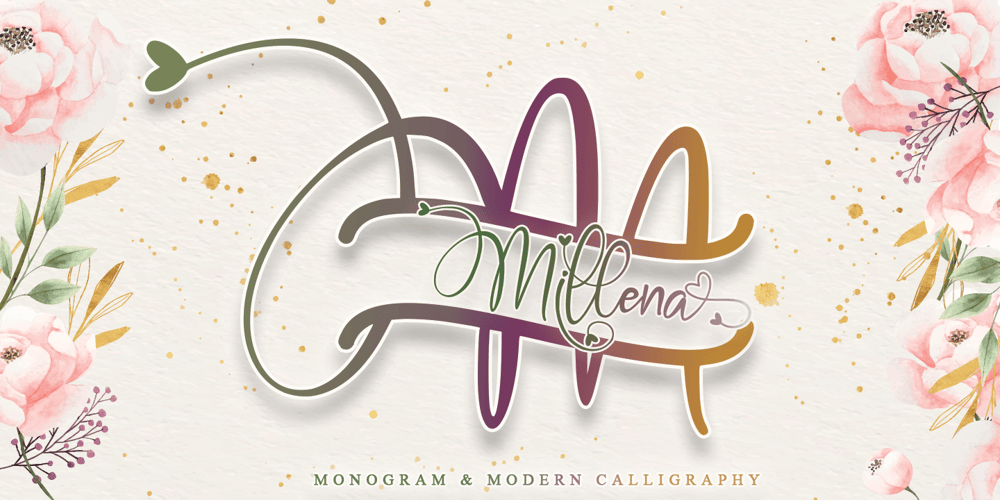
Millena Font Family was designed by Thomas Aradea and published by Letterara. Millena contains 1 styles and family package options. Millena is a sweet, soft hand-lettered handwritten font. Fall in love with its authentic feel and use it to create gorgeous wedding invitations, beautiful stationary art, eye-catching social media posts and much more! This font is PUA encoded which means you can access all of the cute glyphs and swashes with ease! It also features a wealth of special features including alternate glyphs and ligatures and a Monogram style.